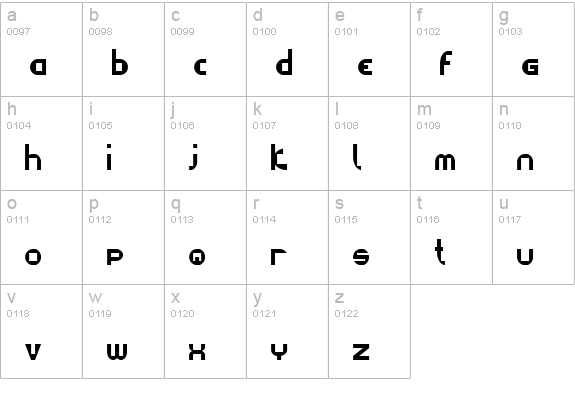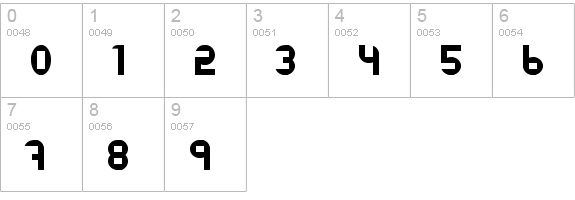
Datacut Font Details
Introducing Datacut font, a sleek and modern typeface that combines elegance with a touch of tech-savvy sophistication. With its clean lines and sharp angles, Datacut is perfect for projects that require a contemporary and professional look. Whether you're designing a website, creating a logo, or crafting a presentation, Datacut font will elevate your work to the next level. What's even better is that Datacut font is completely free to download at FontsMarket.com. This means you can easily access this premium quality font without any cost, making it a valuable addition to your design toolkit. Don't miss out on the opportunity to enhance your projects with the stylish and versatile Datacut font - download it today and let your creativity soar.